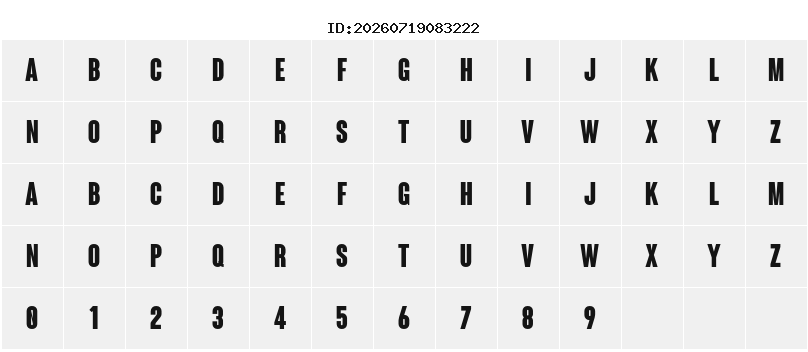
• Font Name: Coluna
• Font Style: Condensed Bold
• Designer: Marco Ugolini
About Coluna.otf
Coluna.otf is a modern, elegant sans-serif font designed for ultimate readability and visual harmony. Perfect for branding, headlines, web design, and print materials.